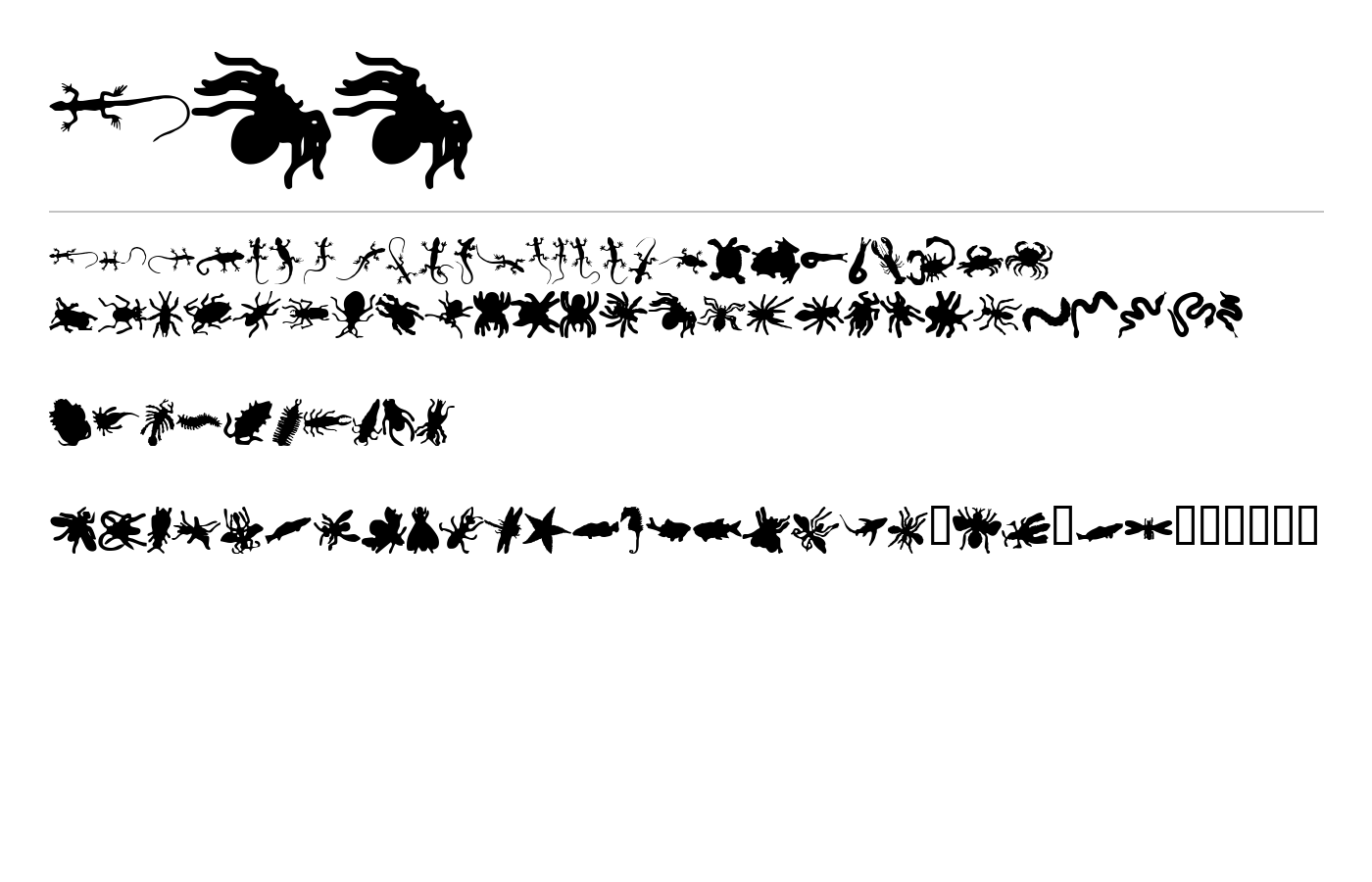
Ann Font is a unique decorative typeface composed entirely of detailed insect and small creature silhouettes, making it ideal for creative projects that need a touch of nature or whimsy. This playful and distinctive display font works best in eye-catching logos, themed posters, or fun packaging where visual impact and originality are key. It’s not suitable for body text but shines in artistic contexts where its intricate shapes can be appreciated.
Ann Font
About Ann Font